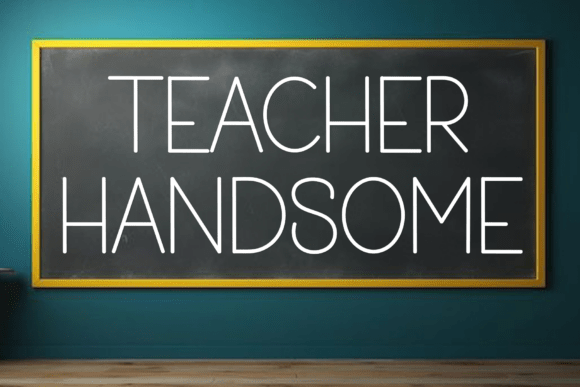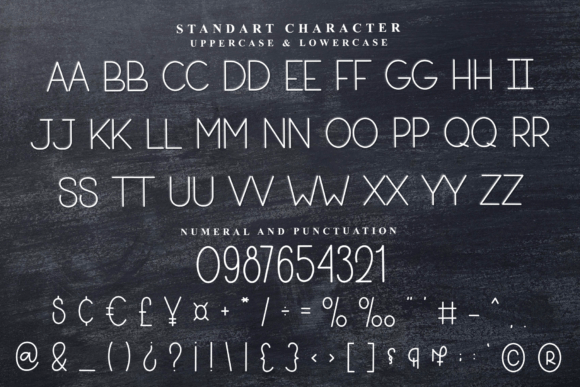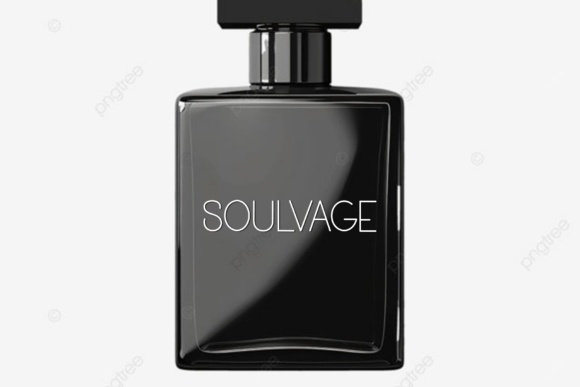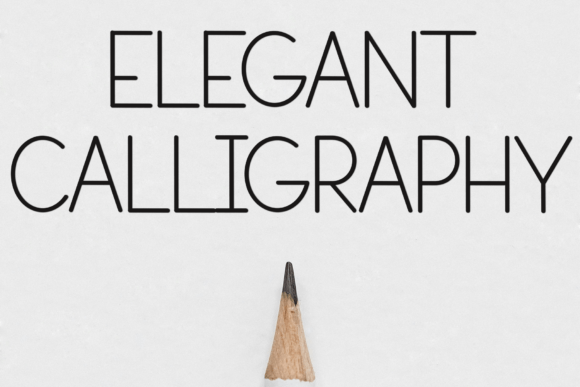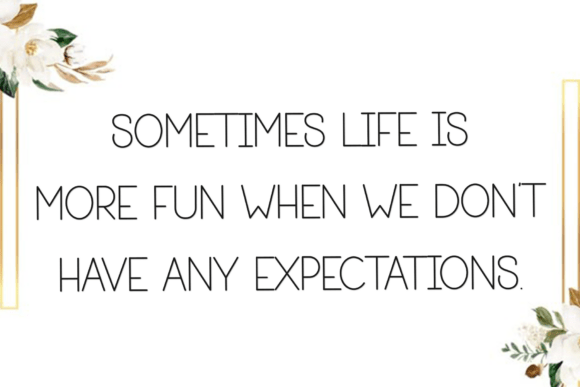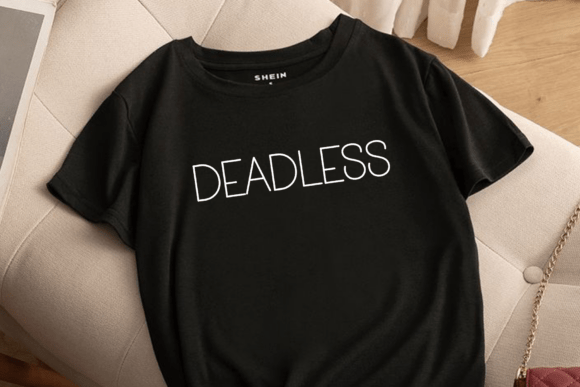
Introduction to Design Instruct Font
Have you ever been working on a creative project, pouring your heart and soul into it, only to feel like something is missing? That’s where the magic of the Design Instruct Font comes in – a festive and merry typeface that captures the spirit of the holiday season. Its decorative elements and whimsical flair add a touch of enchantment to your designs, making them truly special.
Whether you’re creating greeting cards, gift tags, or holiday-themed projects, this font brings a cheerful and nostalgic ambiance to your words. As a valuable resource for designers, the Design Instruct Font is a game-changer for anyone looking to add a personal touch to their designs. With its PUA encoded features, you can access all of the amazing glyphs and ligatures with ease, making it a must-have for any design project.
Key Features of Design Instruct Font
- High-Quality Typography: The Design Instruct Font offers a clean and modern design, perfect for creative projects that require a sophisticated look.
Honest Review: Design Instruct Font
I recently stumbled upon the Design Instruct Font while searching for a free download to use in a creative project. I was excited to give it a try, and I must say, it’s been a pleasant surprise. The Design Instruct Font is a high-quality design resource that offers a lot of versatility.
- High-quality design: The font is crisp and clear, making it perfect for digital and print designs.
- Limited font styles: The Design Instruct Font only comes in a few styles, which might limit its use in certain creative projects.
- No bold or italic options: Unfortunately, there are no bold or italic options available, which might make it difficult to use in certain situations.
Overall, I’m impressed with the Design Instruct Font. While it has some limitations, it’s a great free design resource that can add a lot of value to your creative projects. If you’re looking for a high-quality font to use in your design work, I’d definitely recommend giving it a try.
Design Instruct Font